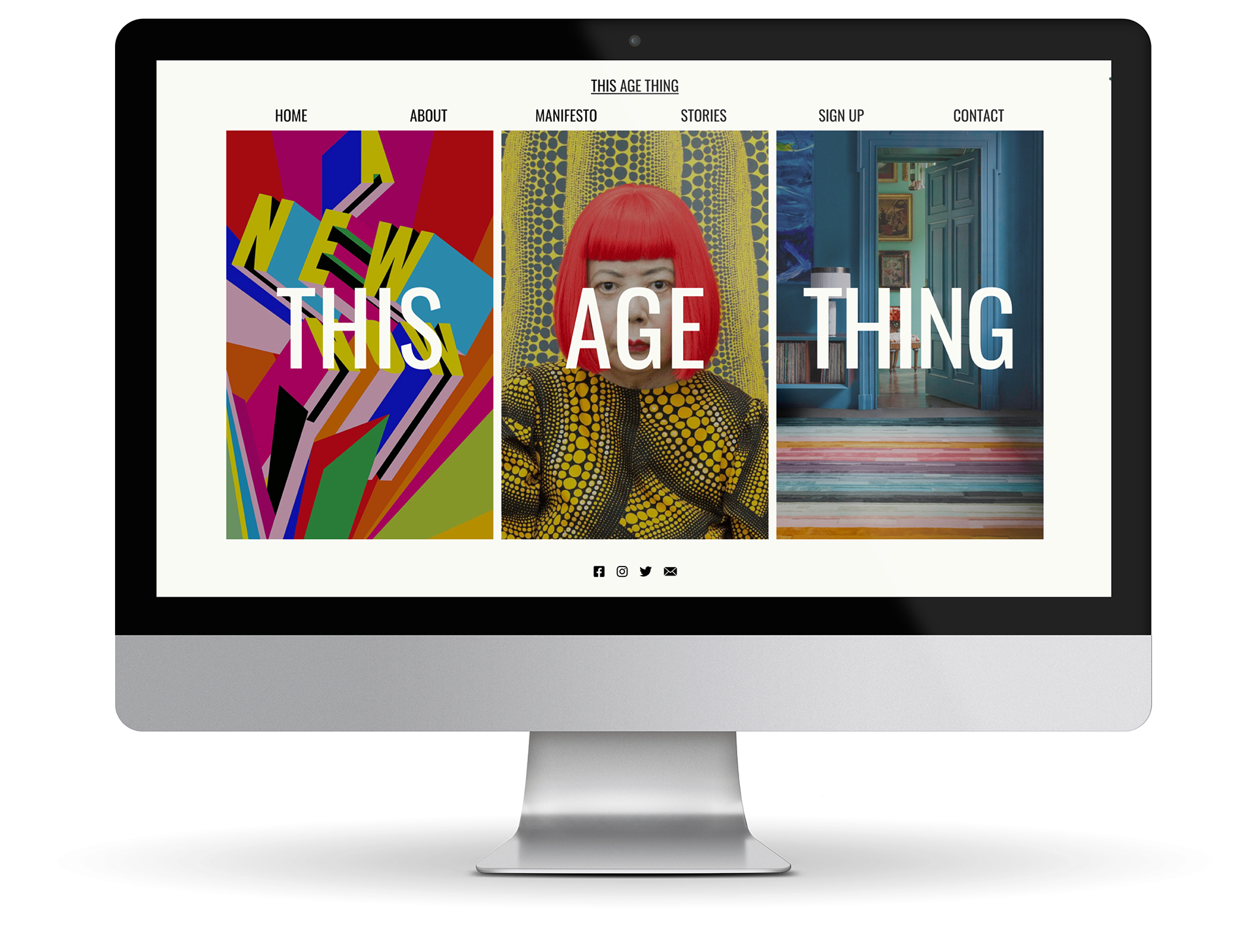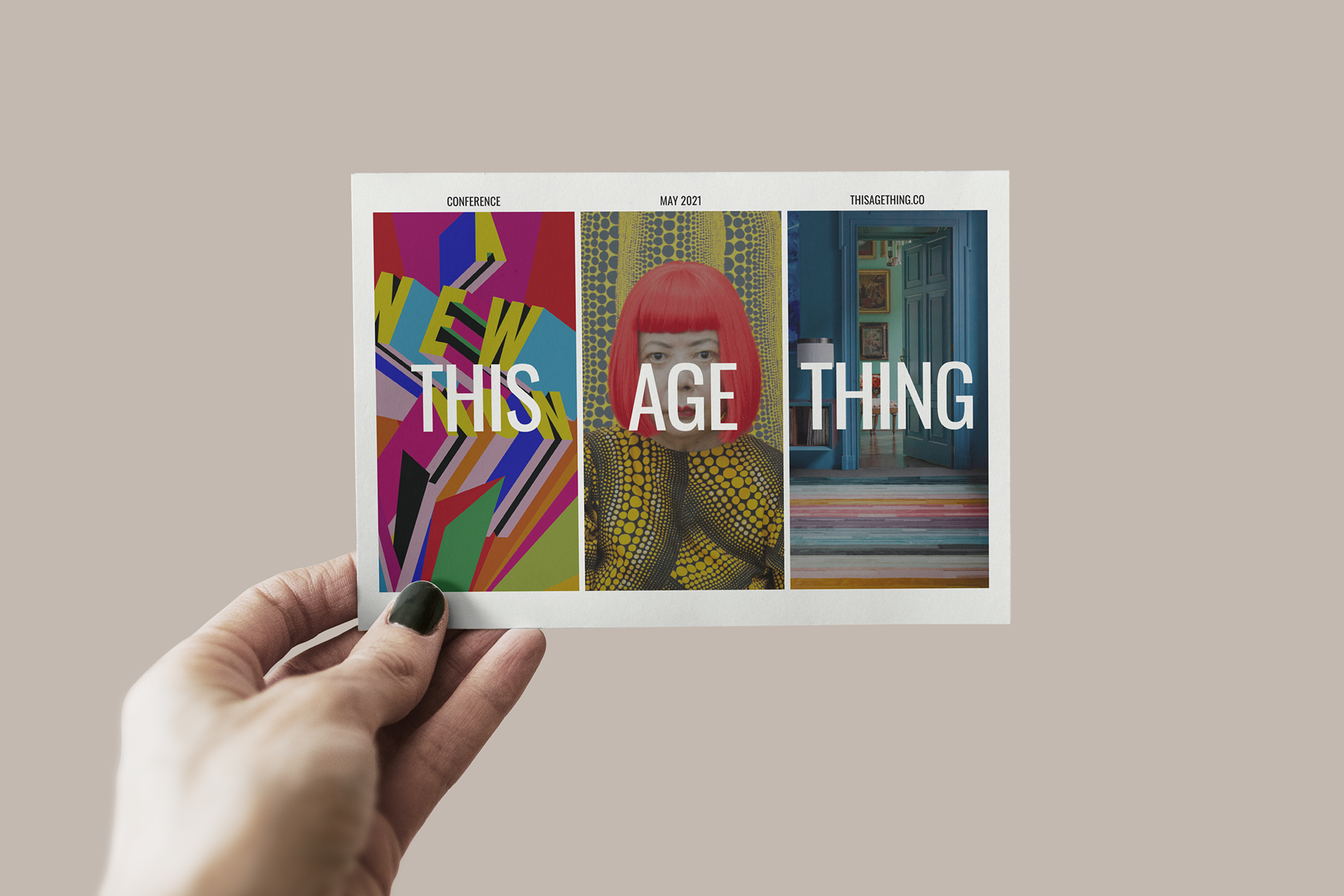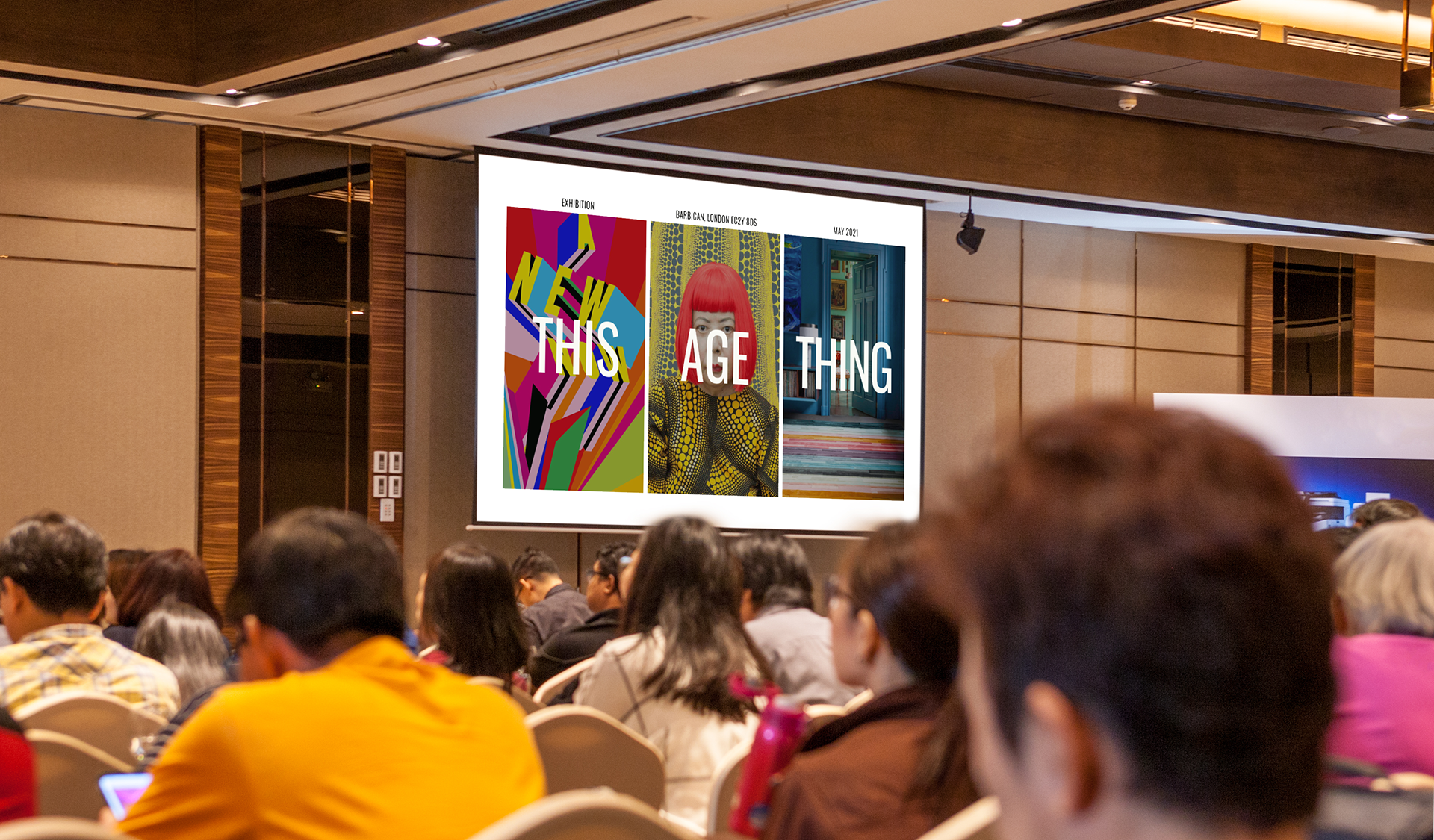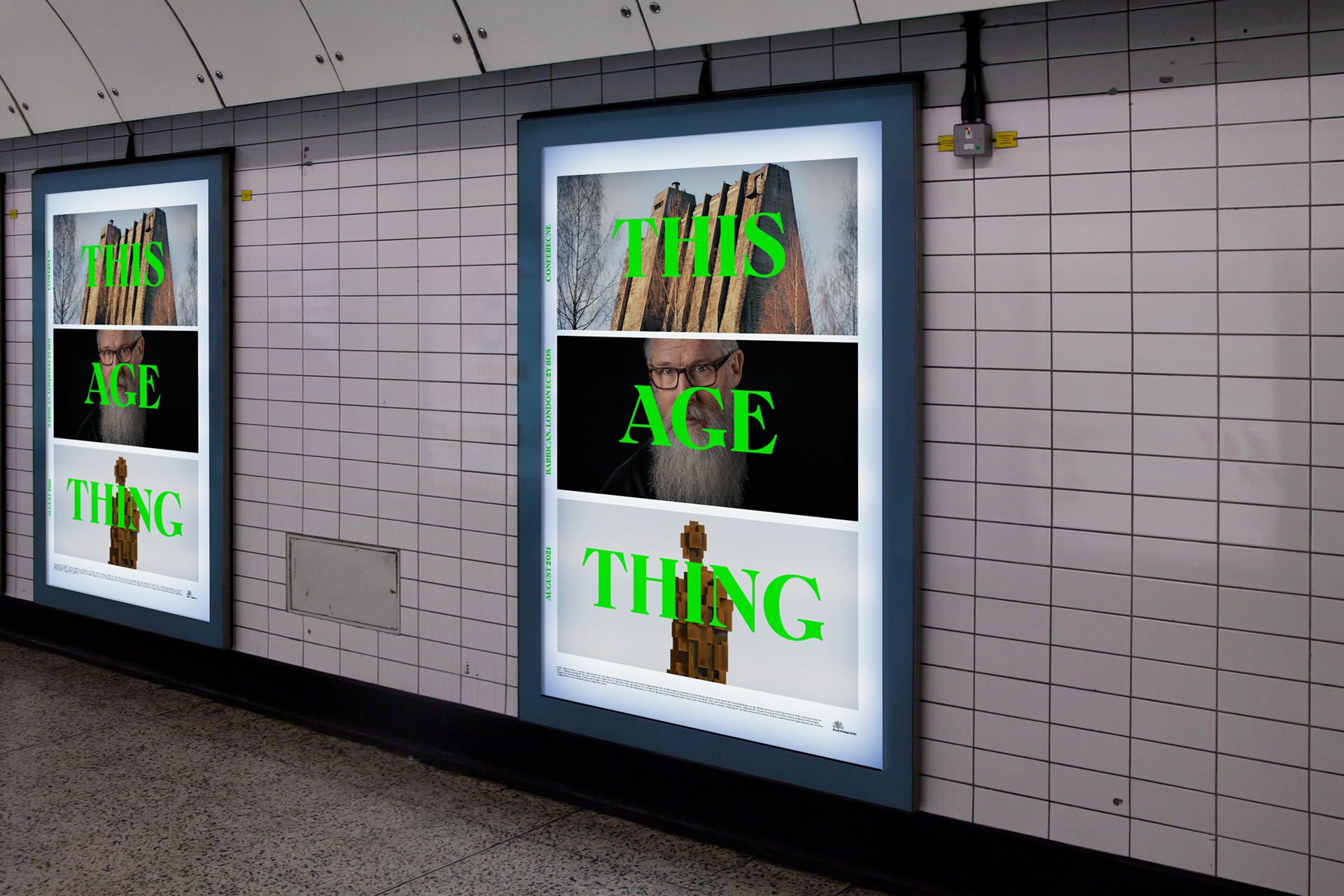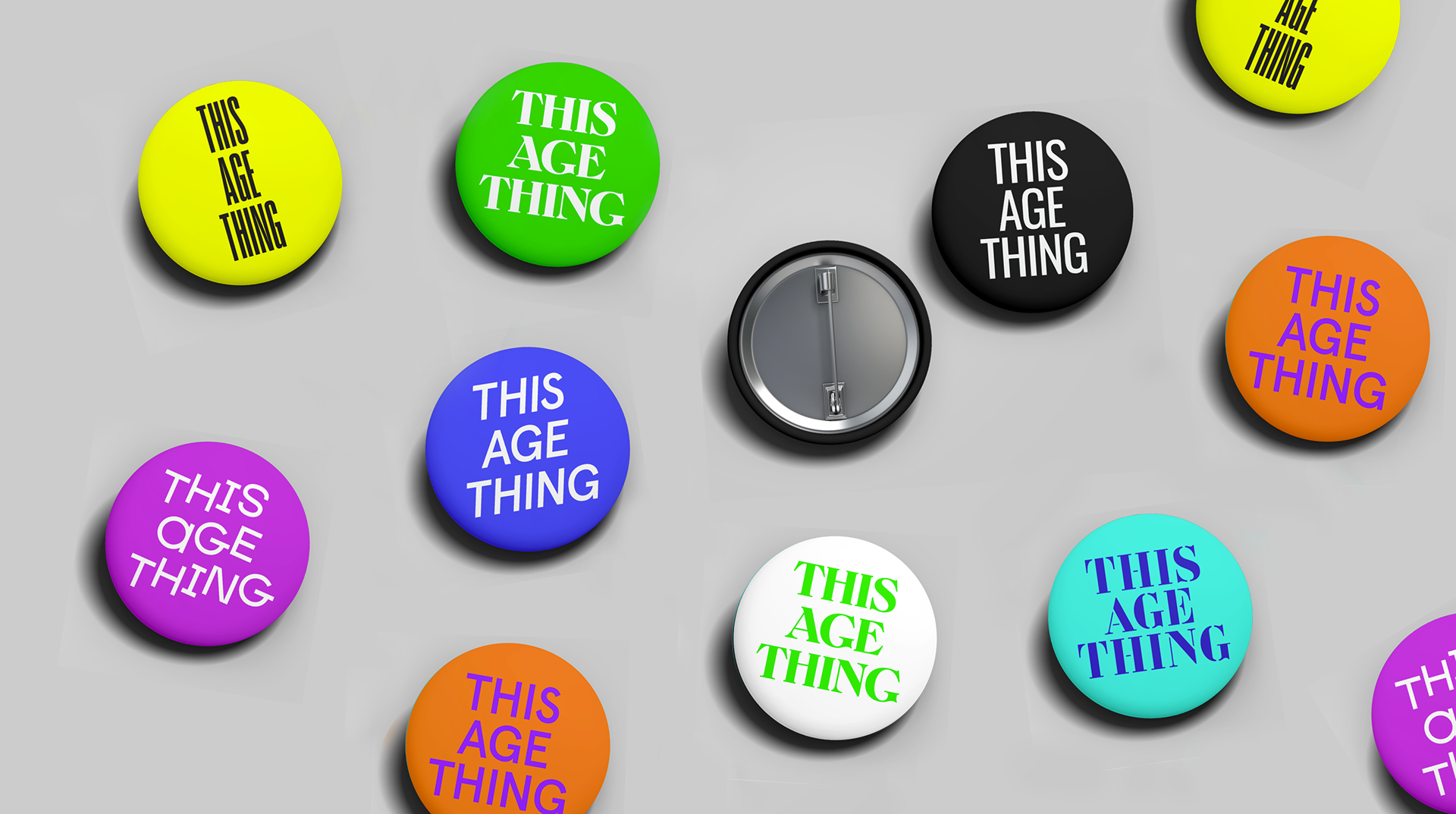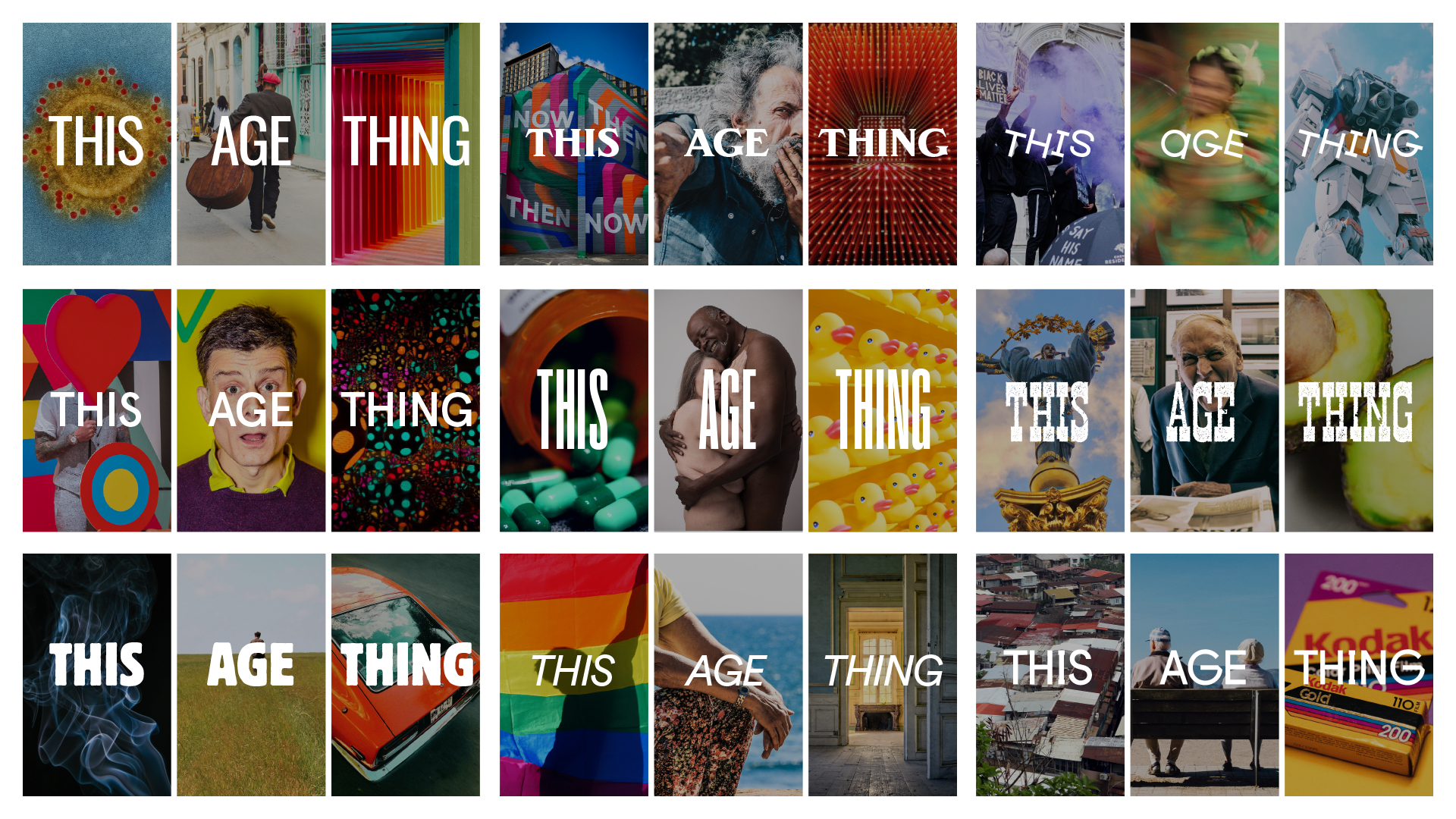
This Age Thing
'This Age Thing' is more than just a phrase; it's a catalyst for meaningful conversations and a symbol of commitment to improving longevity, health, and happiness. We initially used capital letters for clarity but we did not want to impose rigid guidelines. We welcome and encourage everyone to embrace 'This Age Thing' in their own unique ways. We are committed to evolving and adapting to celebrate the individuality and diversity of the community, avoiding age-related clichés.